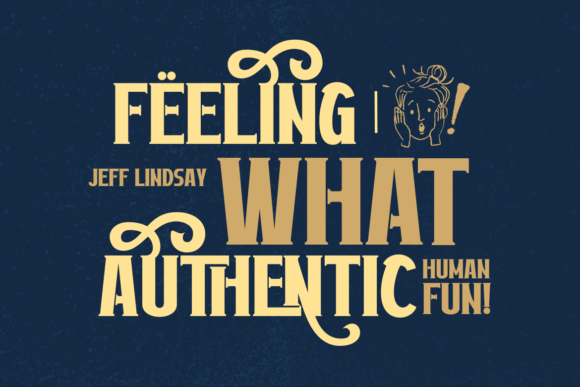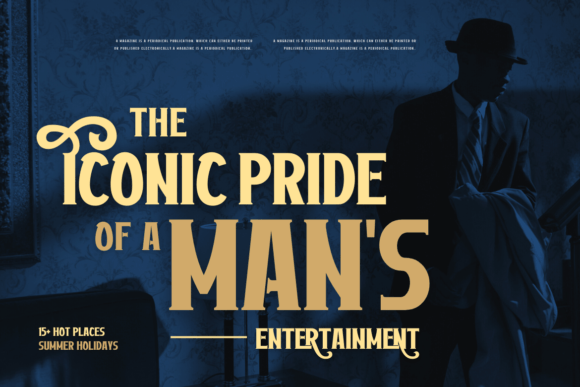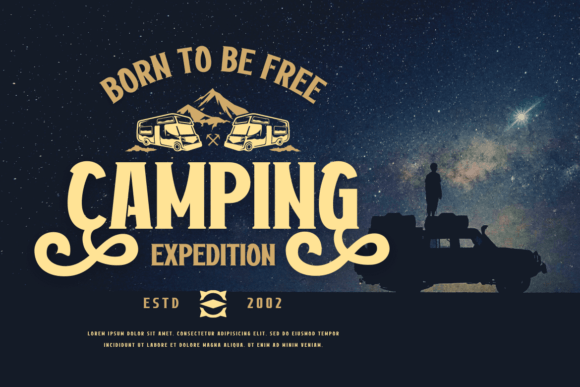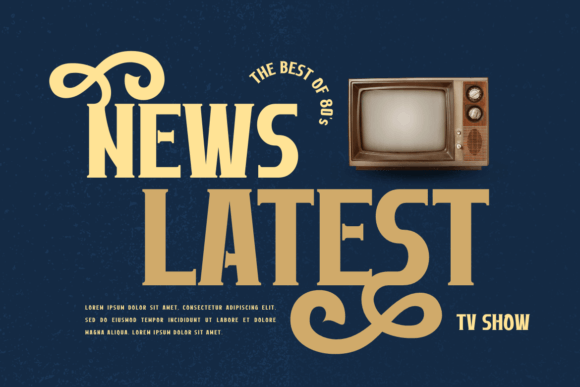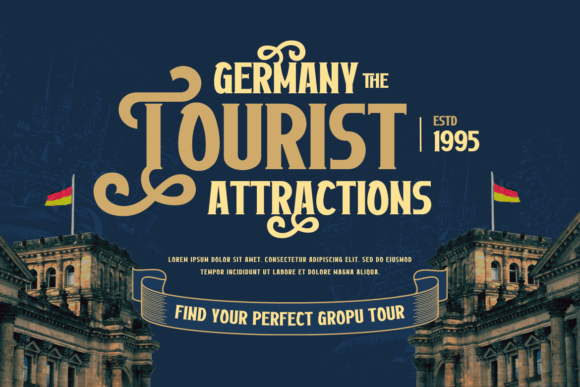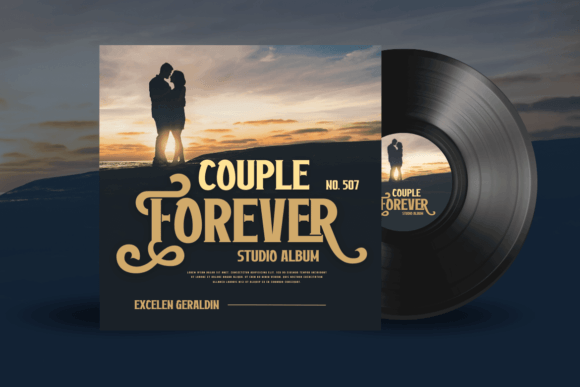
Introducing Ateknov: The Ultimate Retro Condensed Font for Classic Elegance
In the world of typography, fonts play a crucial role in conveying the tone and aesthetic of a design. For designers seeking a touch of nostalgia and classic elegance, Ateknov is the perfect solution. This retro condensed font is designed to transport you back to an era of timeless sophistication, making it an ideal choice for a wide range of design projects.
The Design of Ateknov
Ateknov boasts a clean and polished design, characterized by sharp edges and a condensed appearance. This unique combination makes it perfect for headlines, logos, branding, and any other design element where impact and elegance are desired. The font’s retro vibe is skillfully balanced with modern sensibilities, ensuring it remains versatile and functional across various applications.
An example of Ateknov in use, showcasing its classic elegance and versatility.
Key Features of Ateknov
Ateknov is more than just a beautiful font; it’s also packed with features that enhance its usability and creative potential. Two of its standout features are:
- Alternate Characters: Ateknov comes equipped with a range of alternate characters. These variations allow designers to add a unique touch to their work, ensuring that no two projects look the same. Whether you’re working on a logo, a headline, or a body of text, the alternate characters in Ateknov provide the flexibility to experiment with different styles and tones.
- Ligatures: In addition to alternate characters, Ateknov also includes ligatures. Ligatures are special characters that combine two or more letters into a single glyph, creating a more harmonious and fluid text flow. This feature is particularly useful for creating elegant and sophisticated text arrangements, adding an extra layer of professionalism to any design.
Why Choose Ateknov?
There are many fonts available to designers today, but Ateknov stands out for several reasons:
- Classic Elegance: In an age where modern and minimalist designs are prevalent, Ateknov offers a refreshing retro aesthetic that can add depth and character to any project.
- Versatility: Whether you’re designing a logo, a website, a print advertisement, or a packaging label, Ateknov’s versatility ensures it can be adapted to fit a wide range of design needs.
- Attention to Detail: The inclusion of alternate characters and ligatures demonstrates the attention to detail that has gone into creating Ateknov. This level of care ensures that designers have the tools they need to create truly exceptional work.
Using Ateknov in Your Designs
- Experiment with Alternate Characters: Don’t be afraid to try out the different alternate characters available in Ateknov. This can help you find the perfect look for your project.
- Make Use of Ligatures: Ligatures can add a touch of elegance to your text. Experiment with different combinations to see how they enhance your design.
- Play with Sizes and Weights: Ateknov’s condensed design makes it highly legible even at smaller sizes. Experiment with different sizes and weights to add hierarchy and emphasis to your text.
Ateknov is a unique and versatile retro condensed font that brings classic elegance to the world of design. Its clean and polished design, combined with features like alternate characters and ligatures, make it an excellent choice for designers looking to add a touch of nostalgia to their work. Whether you’re creating headlines, logos, or branding materials, Ateknov is sure to make a lasting impression.
Discover the possibilities with Ateknov and elevate your designs with a touch of timeless sophistication.